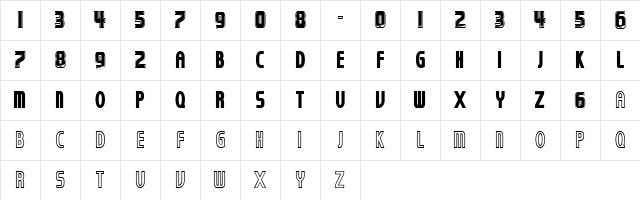
TheFootballLeague Regular
Design Context for TheFootballLeague Typeface
TheFootballLeague offers clean, dependable letterforms without strong stylistic allegiance, making it a practical choice for designers who need flexibility.
Pro Tip: Use TheFootballLeague in both headline and body roles to test its range before committing to a single application.